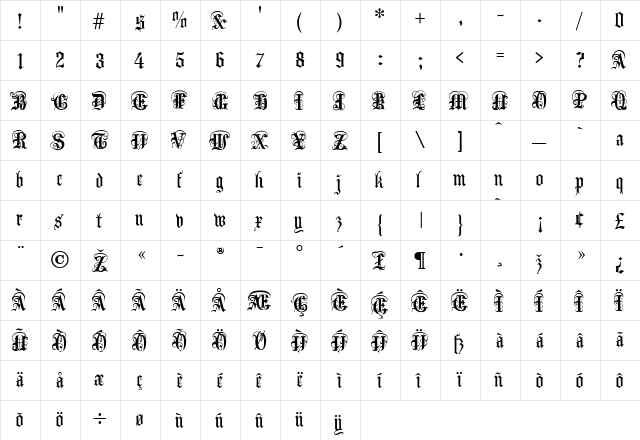
AngloText Regular
| Foundry | Digitized by Dan X. Solo. Software \ by Dover Publications, Inc |
Design Context for AngloText Typeface
AngloText is a composed and adaptable typeface that performs quietly and consistently across a wide range of design contexts.